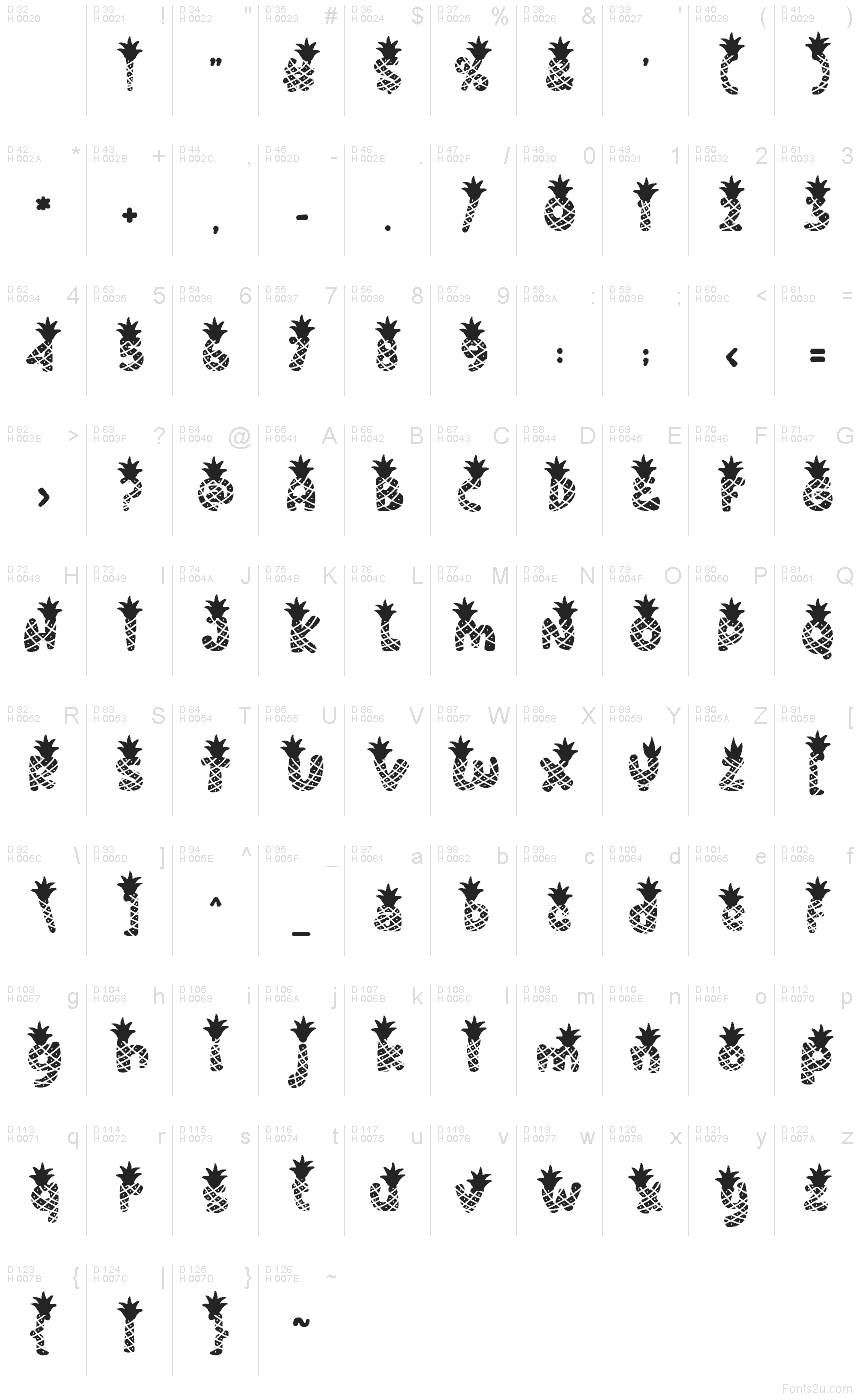
Sandy Toes Pineapple
Sandy Toes Pineapple font by PutraCetol Studio is a bold display typeface that exudes a fun and whimsical character. This decorative font is filled with tropical vibes and thematic embellishments that can hardly go unnoticed from the first glance. It’s playful all the way with various patterns in each letter.
With its engaging visual design, this free font is fit for decorating invitations, posters, banners, patterns, social media posts, etc. It’ll beautifully adorn website designs for plant nurseries, blogs or vlogs on plants or gardening related topics. Books covers also represent an excellent professional use case for Sandy Toes Pineapple!